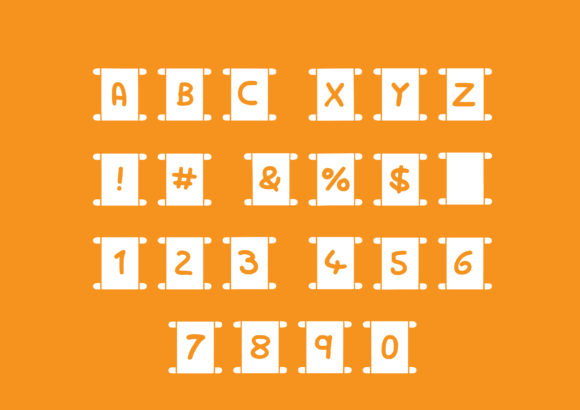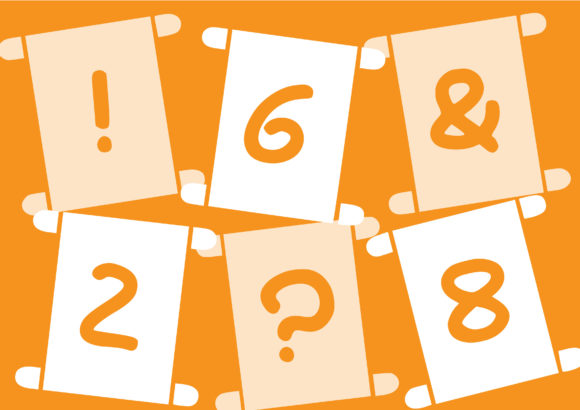
Introduction to Play Scroll Font
Play Scroll is an incredibly cool and interestingly designed decorative font.
Whether youโ€™re using it for crafting, digital designing, presentations or greeting cards making, itโ€™s perfect .
Key Features of Play Scroll Font
Why Choose Play Scroll Font?
Play Scroll Font offers exceptional quality and versatility, making it a valuable addition to your design toolkit. Whether you’re creating for personal projects or commercial use, Play Scroll Font delivers professional results.